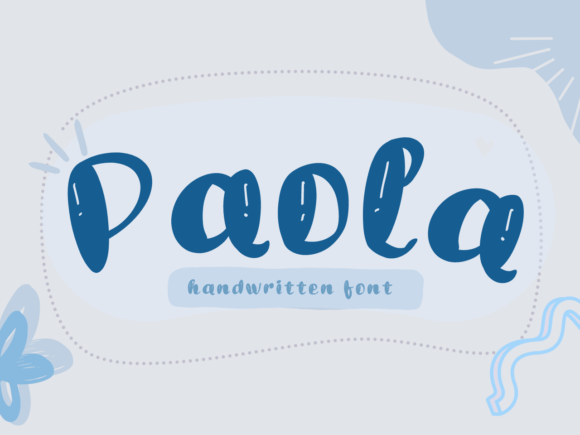
Introducing Paola Font: A Symphony of Artistic Charms for Your Creative Endeavors
Immerse yourself in the elegance and artistry of Paola Font, a captivating script typeface that breathes life into your digital creations. Inspired by the beauty of handwritten strokes, Paola Font is a testament to the power of individuality and creative expression.
With its distinct brush-like textures and carefully crafted details, Paola Font possesses a magnetic allure that draws attention and leaves a lasting impression. Whether you're a designer, artist, or aspiring wordsmith, Paola Font is the perfect tool to elevate your work and make your ideas shine.
As a Font For Body Text, Paola Font excels in crafting captivating paragraphs and articles that captivate readers and leave them yearning for more. Its flowing curves and smooth transitions create a visual rhythm that guides the eye effortlessly through your written content.
But Paola Font's versatility extends far beyond the realm of text. Its artistic flair makes it an ideal choice for crafting stunning logos, eye-catching headlines, and memorable social media graphics. Let Paola Font's unique charm add a touch of sophistication and intrigue to your visual creations.
Crafted with meticulous attention to detail, Paola Font complements a wide range of design styles, from classic and elegant to modern and edgy. Its ability to seamlessly blend with other fonts makes it a versatile and adaptable asset for any creative project.
Paola Font is a treasure trove of creativity, offering a diverse selection of strange artistic characters that ignite your imagination. Experiment with different ligatures and swashes to add a touch of whimsy and playfulness to your designs. The possibilities are endless, and the only limit is your creativity.
Paola Font is more than just a font; it's an invitation to explore the realms of artistic expression and leave your unique mark on the world. Its captivating beauty and versatility make it the perfect choice for those seeking to create truly remarkable and unforgettable designs.